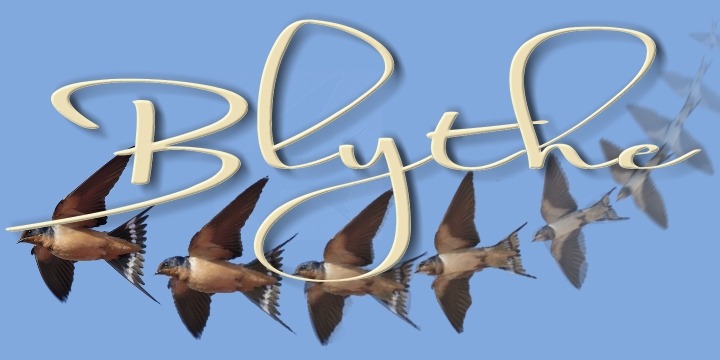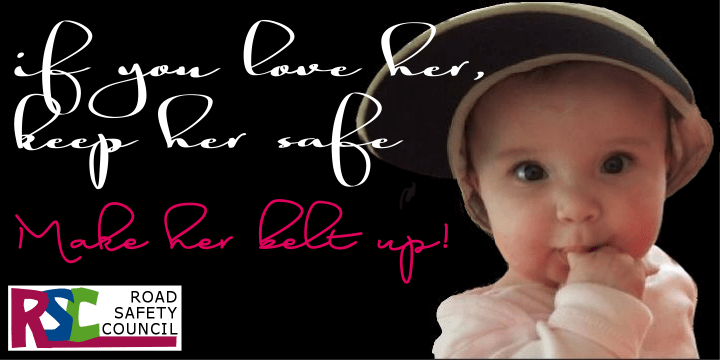
Blythe
Font Family by Scholtz Fonts
Blythe is a stylish and contemporary handwriting font that captures the elegant hand of the 1950s with the immediacy of handwriting fonts such as Affable.
There are many handwriting fonts out there, many of which border on being grungy and irregular. This font combines beauty with individuality and panache.
Blythe is characterized by dramatic ascenders and descenders (found on characters such as f, g, h, j etc) and it may be necessary to increase the line-spacing a little in some applications to accommodate these features.